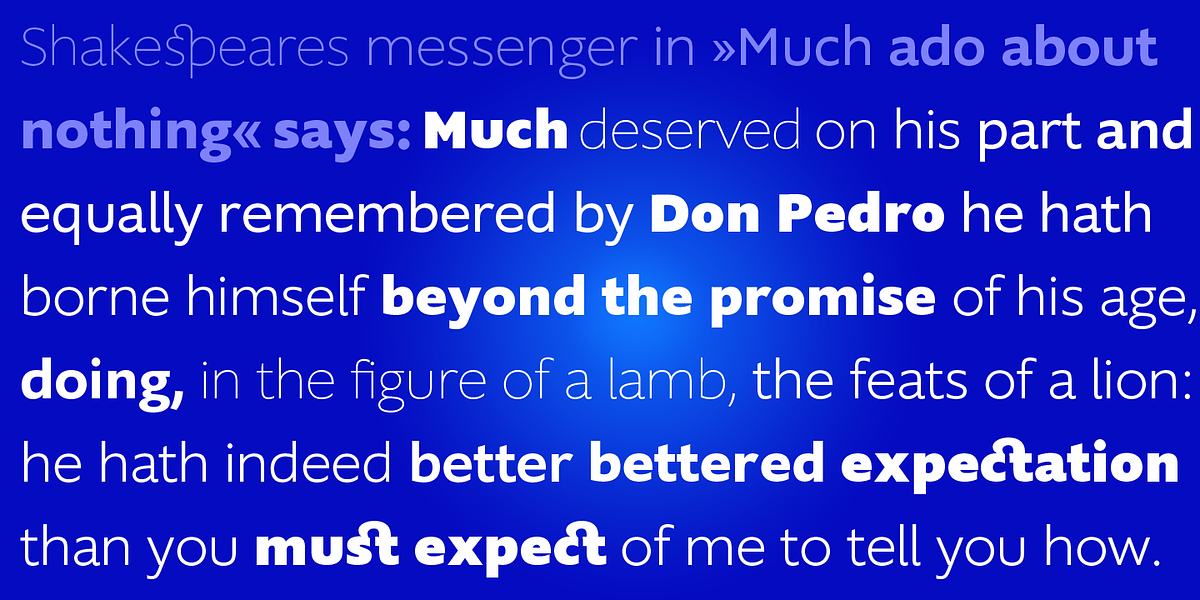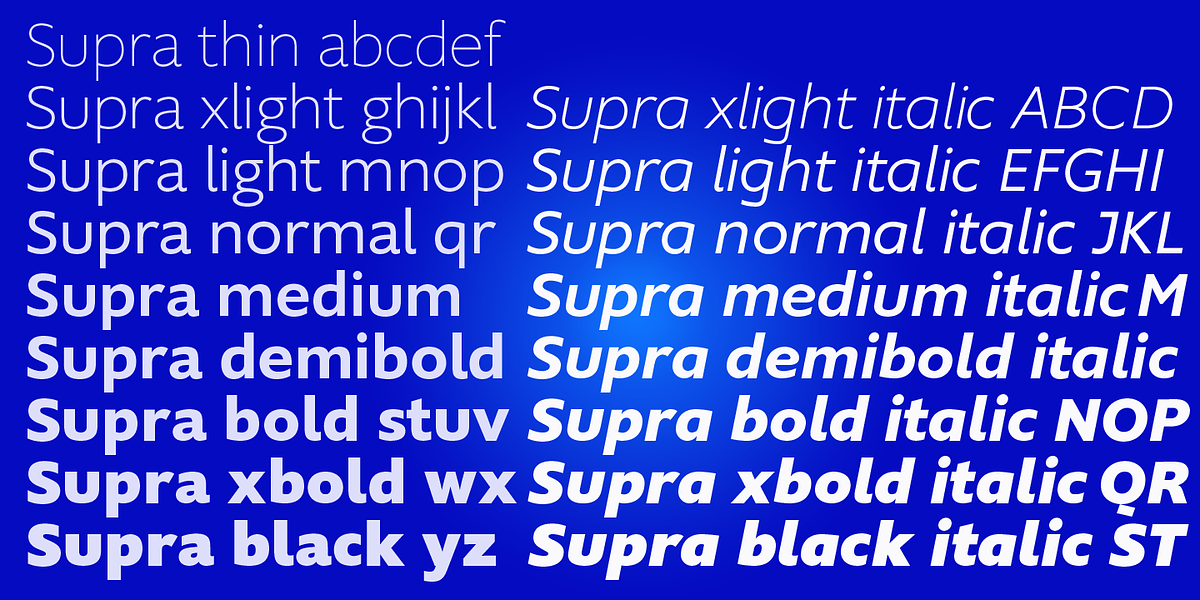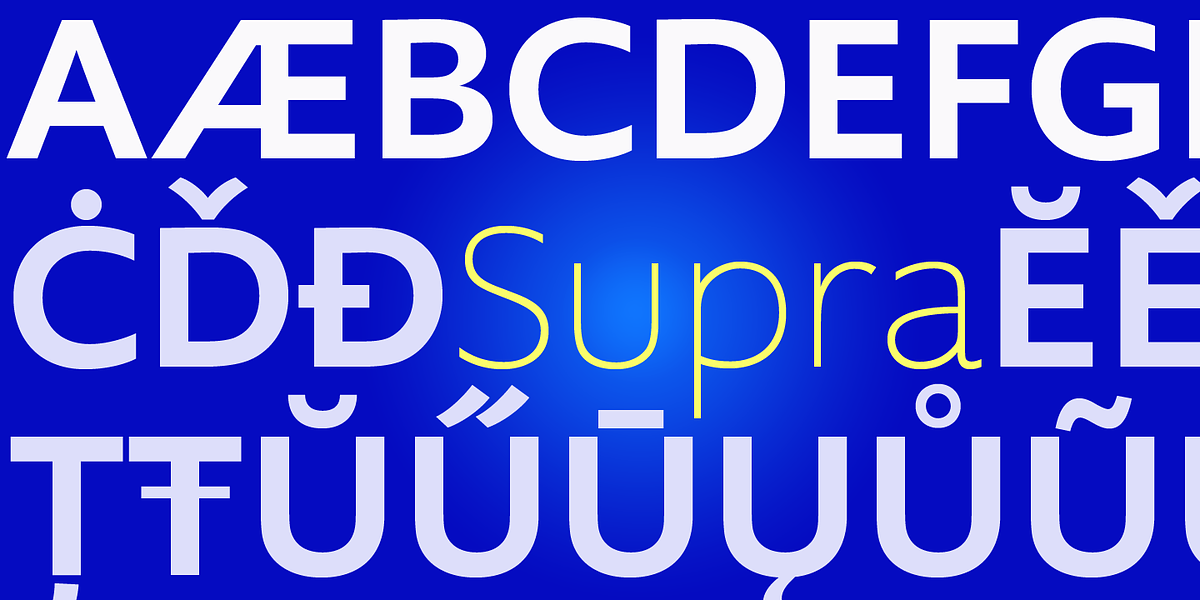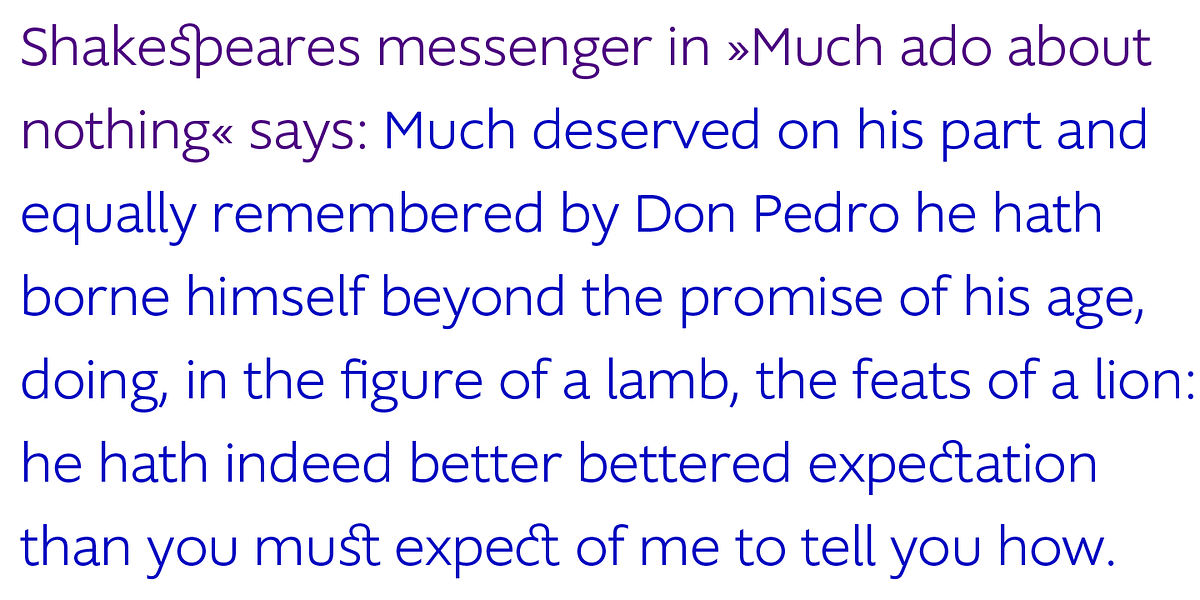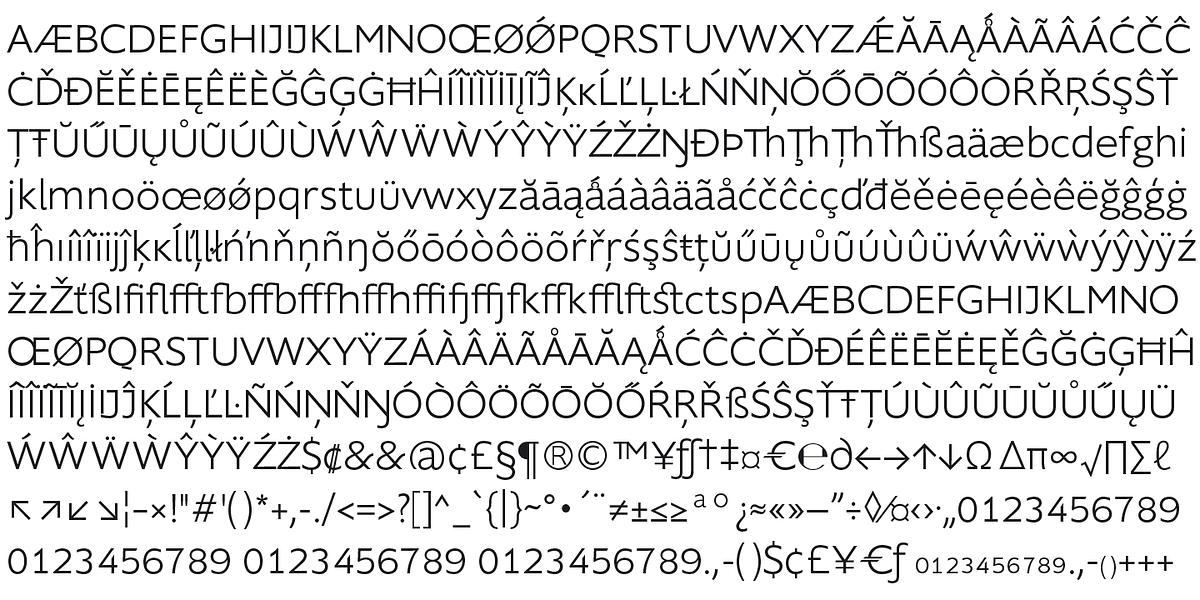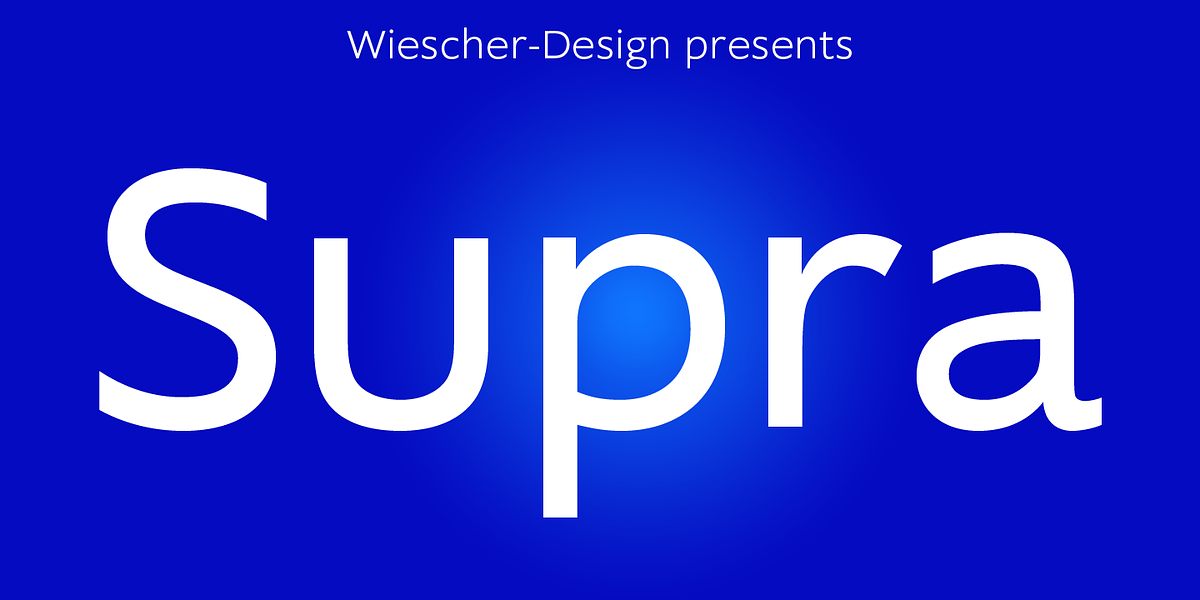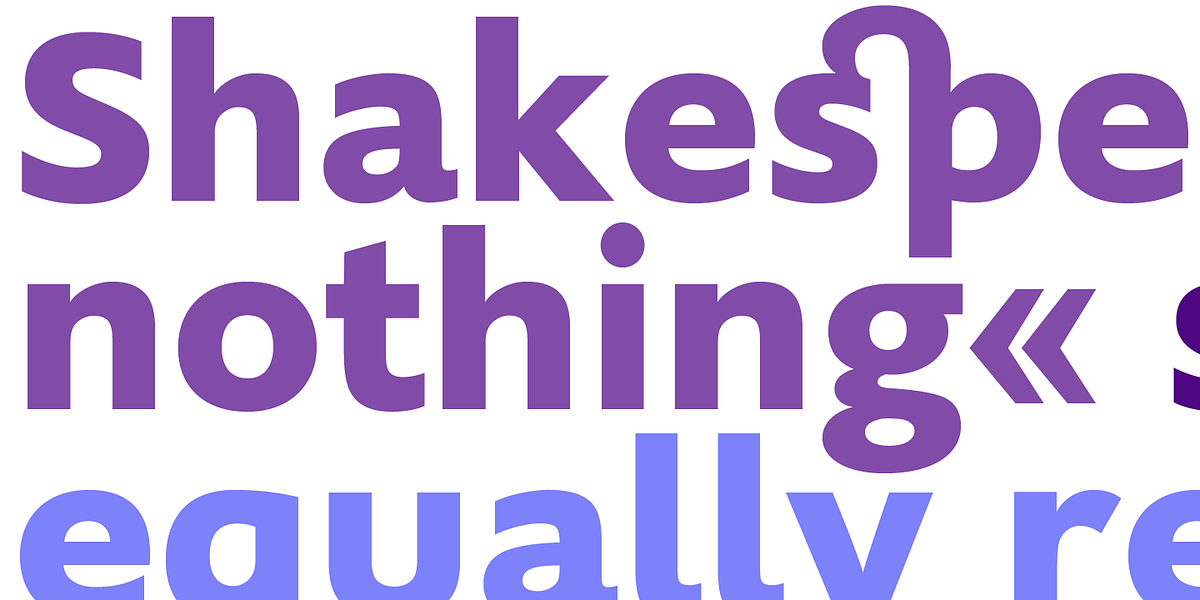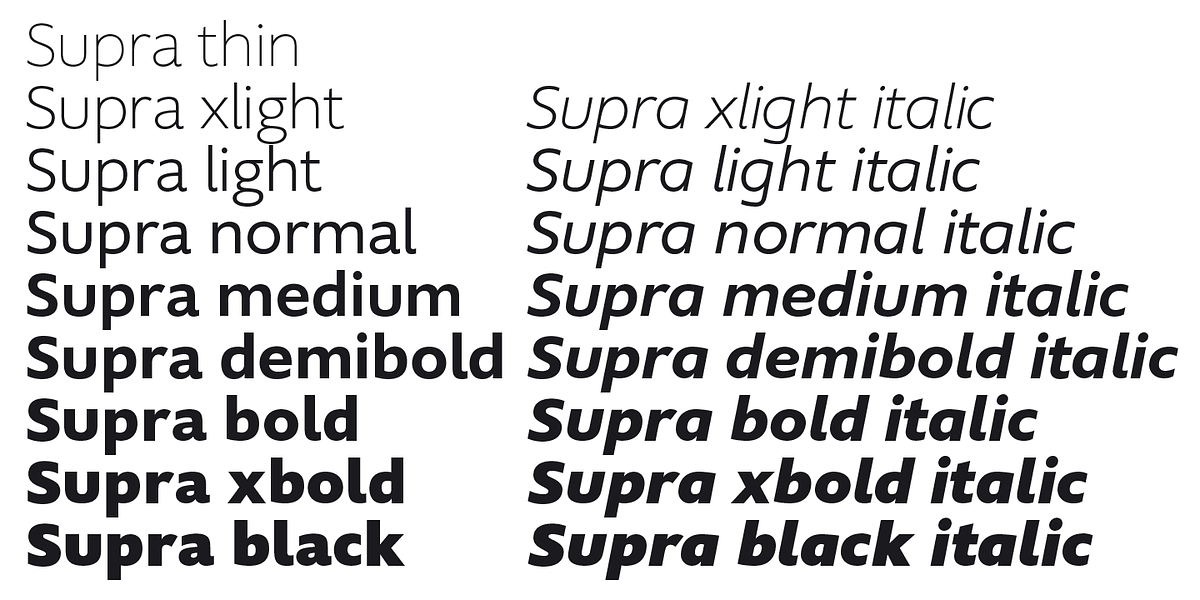
Supra
Supra is a modern sans serif typeface designed by Gert Wiescher. It features eight weights with matching italics and an extended character set supporting over 40 Central and Eastern European languages. The font's design is characterized by its high x-height and high ascenders which contribute to its excellent legibility, making it suitable for both body text and headlines. Supra also includes ligatures, different figures, fractions, currency symbols, and small caps.